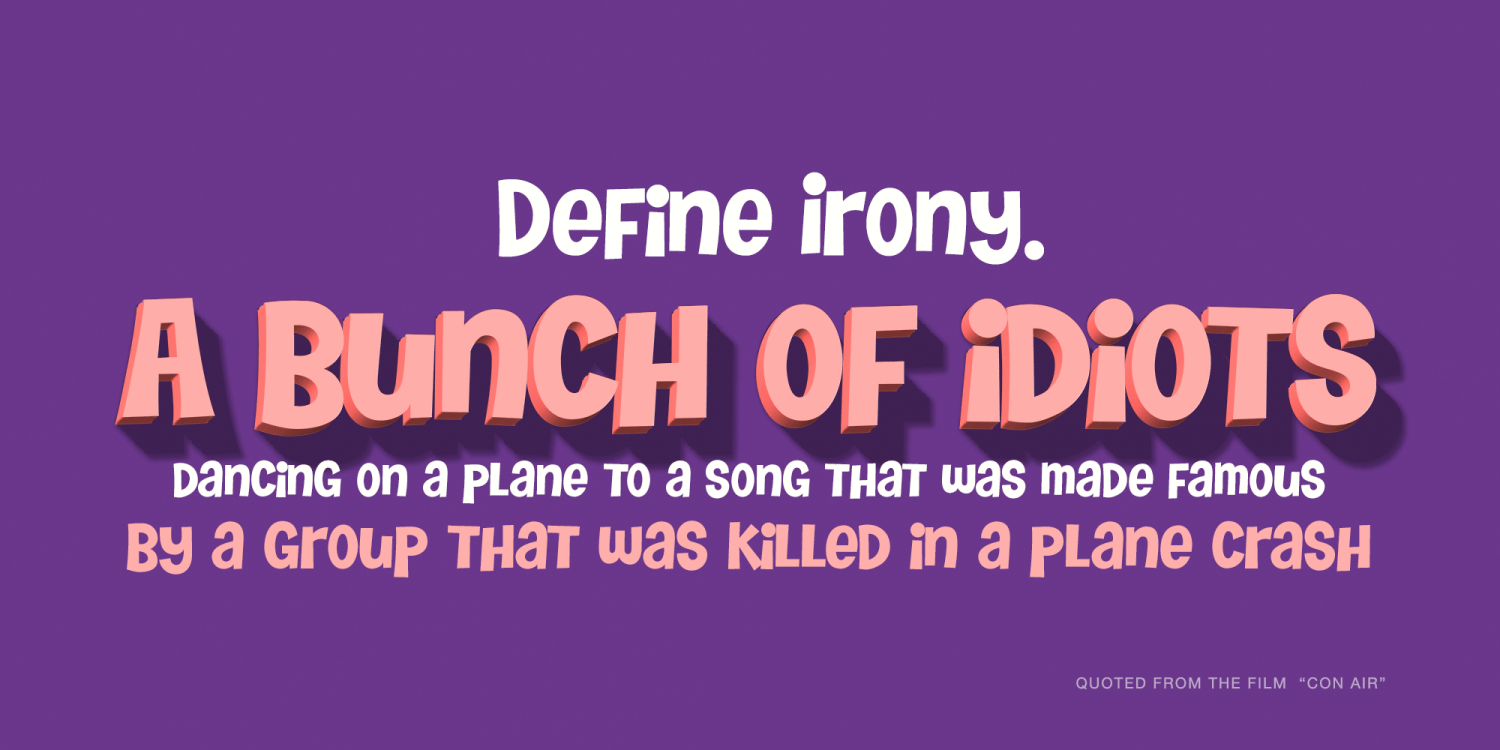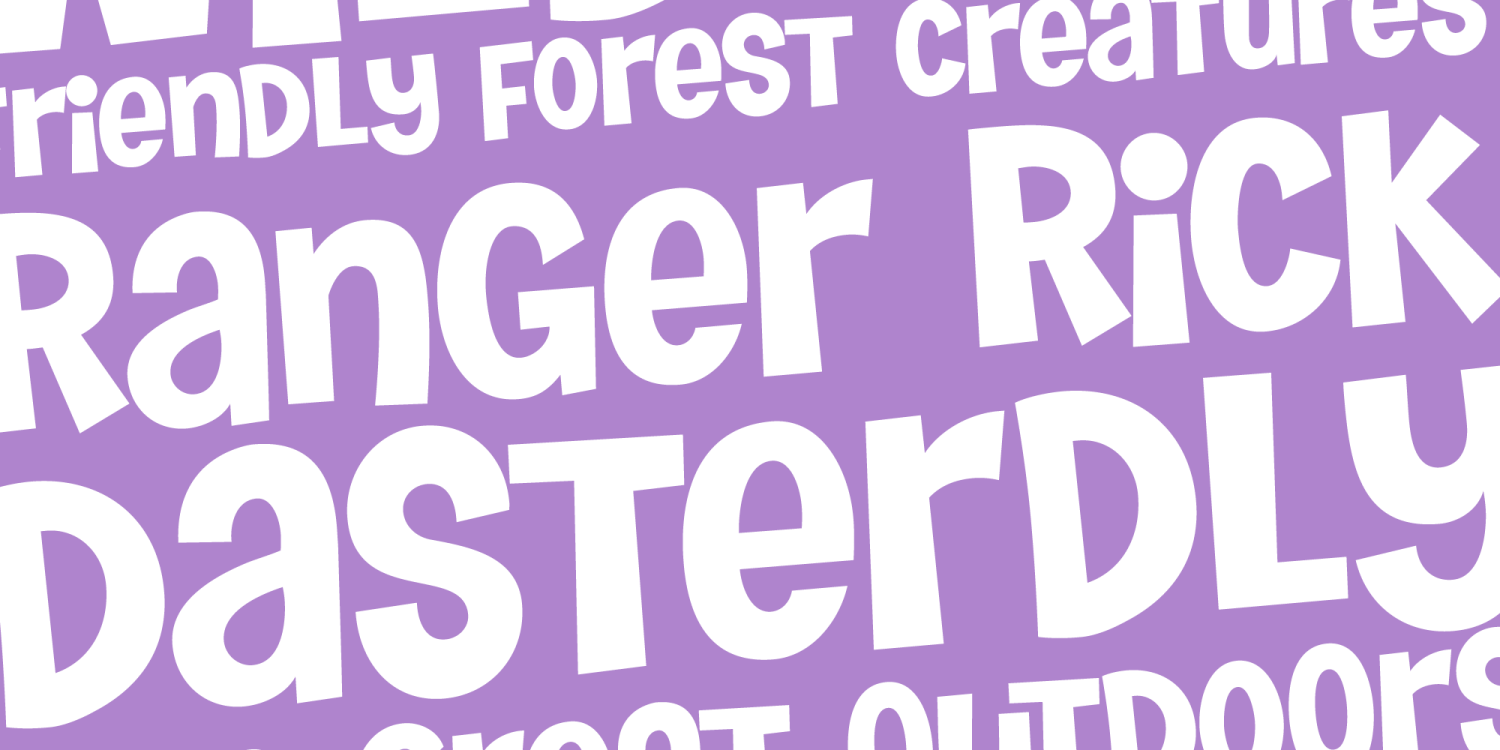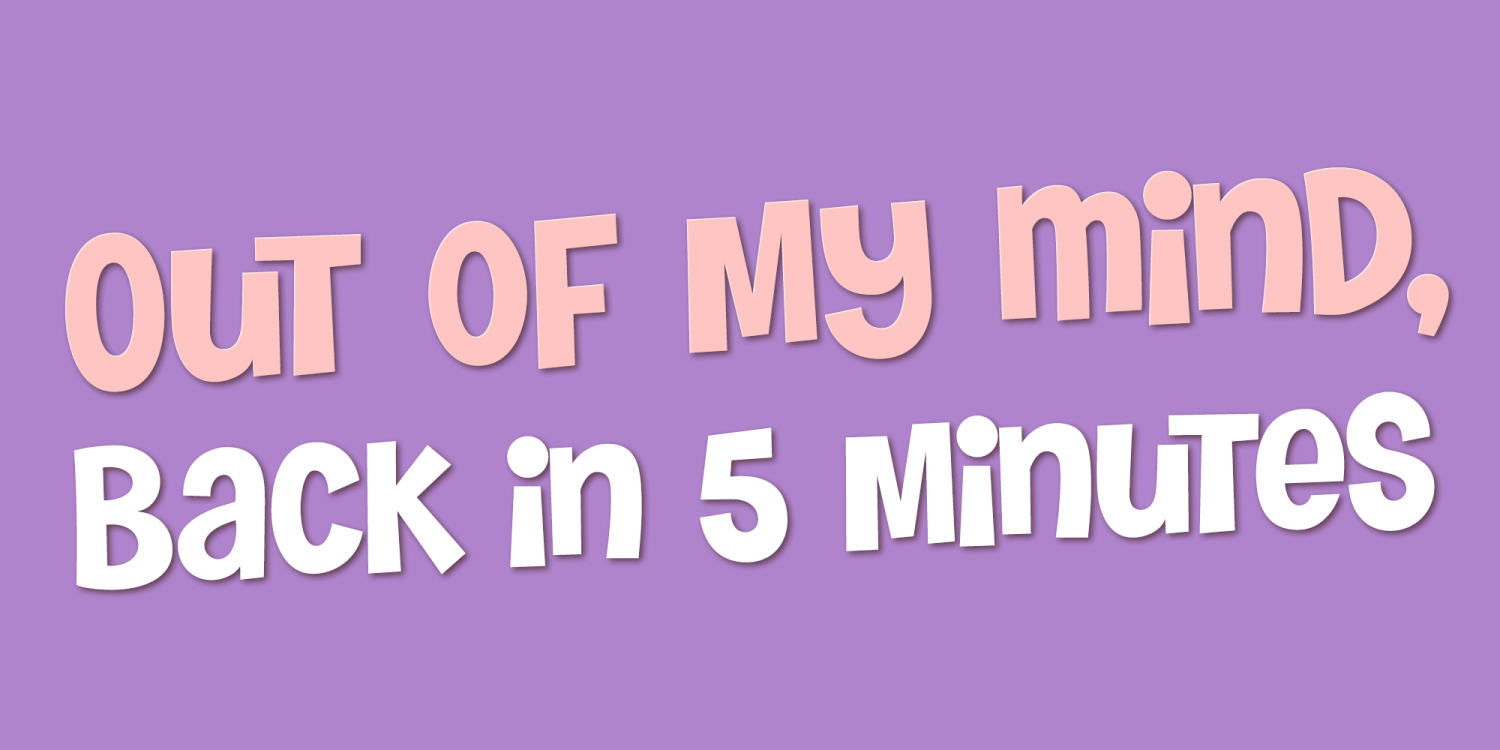
About Tiny Butler PB
A light hearted unicase font inspired by the titling of the 1977 Pink Panther cartoon, "Therapuetic Pink".
The Tiny Butler PB font family includes 381 glyphs.
Tiny Butler PB by Pink Broccoli